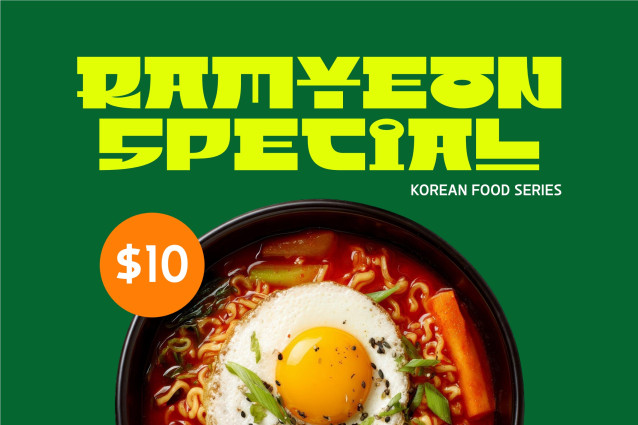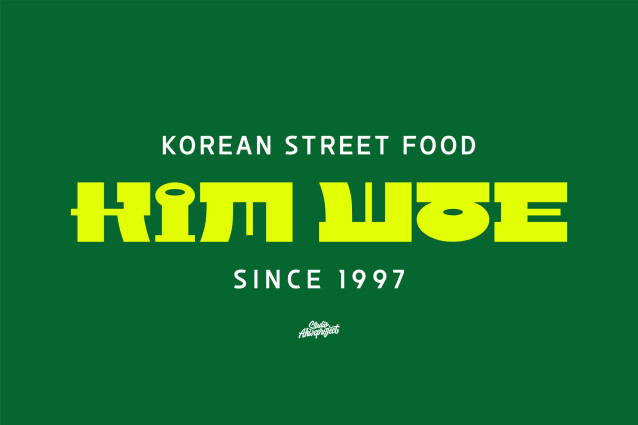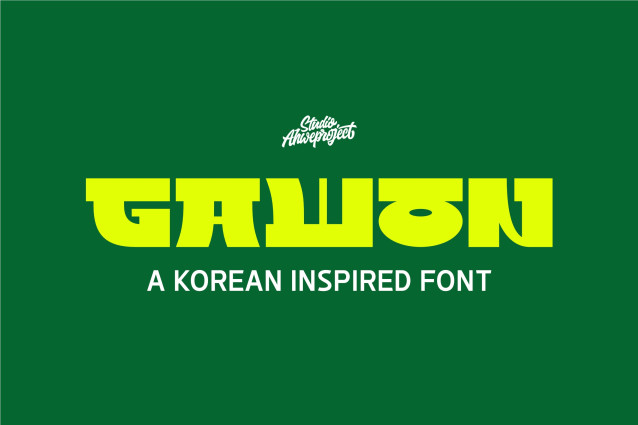
Gawon is a bold Korean-inspired display font that brings the distinctive visual character of Hangul into a modern Latin typeface. Built with strong geometric shapes, chunky proportions, and unconventional letterforms, Gawon creates an instantly recognizable look while remaining readable and versatile for contemporary design.
Its unique structure gives every word a strong visual presence, making Gawon especially effective for designs that need to feel modern, playful, cultural, and eye-catching. The Korean influence is reflected through the balance, block-like construction, and rounded geometric details of the characters, giving your typography a distinctive East Asian atmosphere without losing the familiarity of the Latin alphabet.
Gawon works best as a display and headline font. Its bold personality makes it ideal for posters, food packaging, restaurant branding, Korean-inspired products, album covers, music graphics, fashion designs, streetwear, logos, social media posts, YouTube thumbnails, advertisements, merchandise, café menus, magazines, event graphics, and other creative projects.
Whether you’re creating a modern Seoul-inspired poster, Korean food branding, K-pop-inspired artwork, or simply looking for a display font with an unusual personality, Gawon helps turn simple words into strong visual statements.